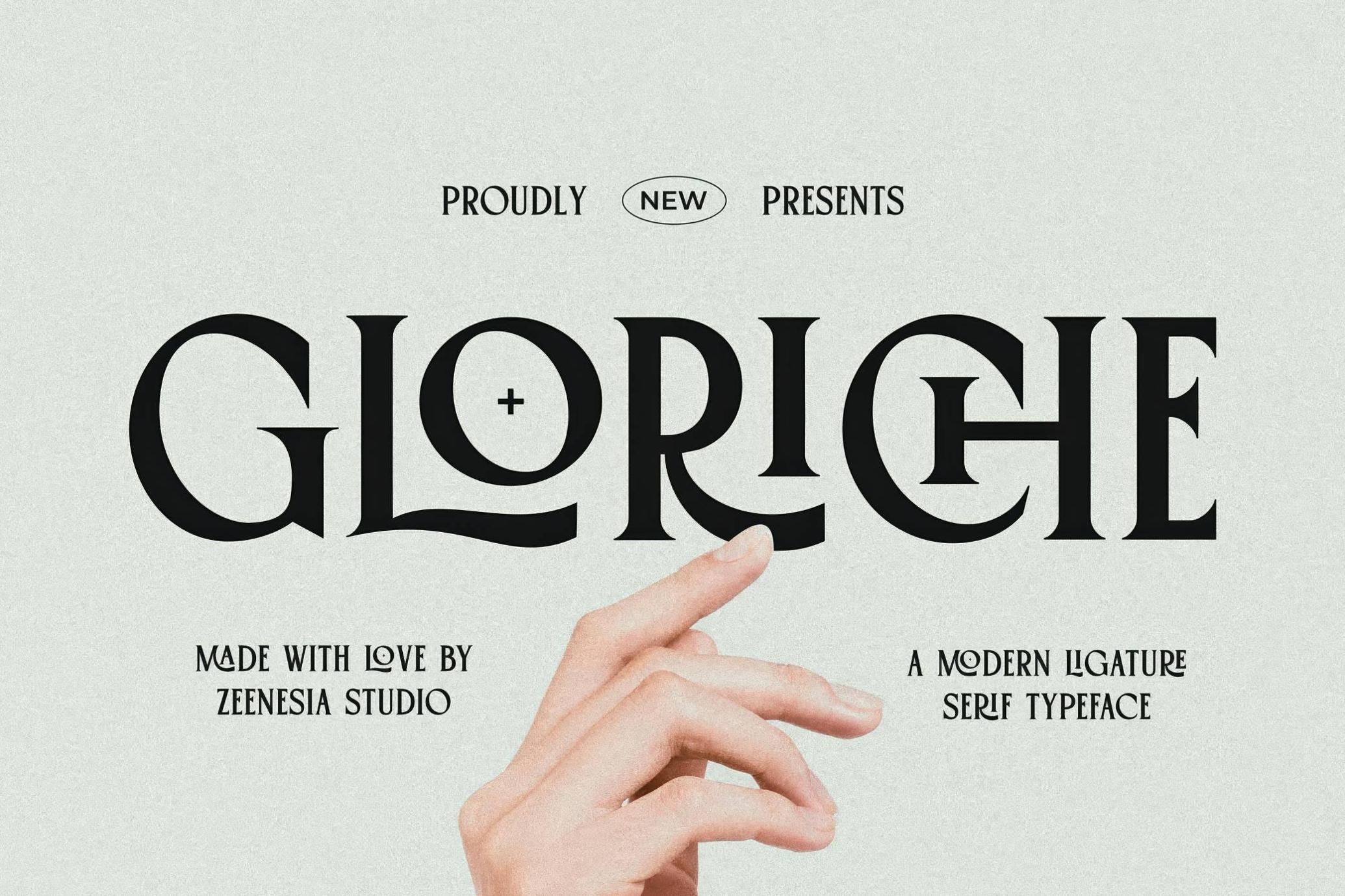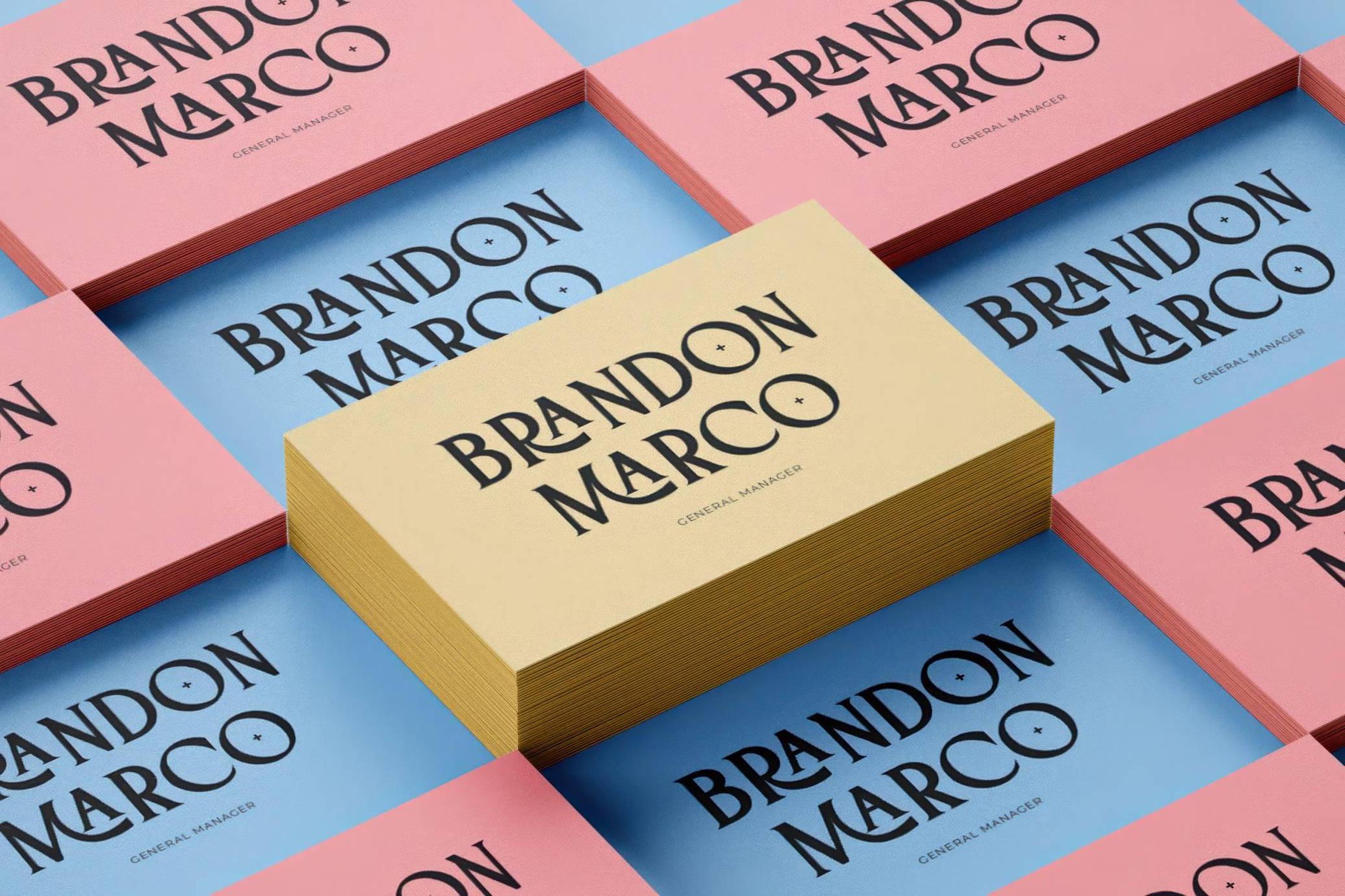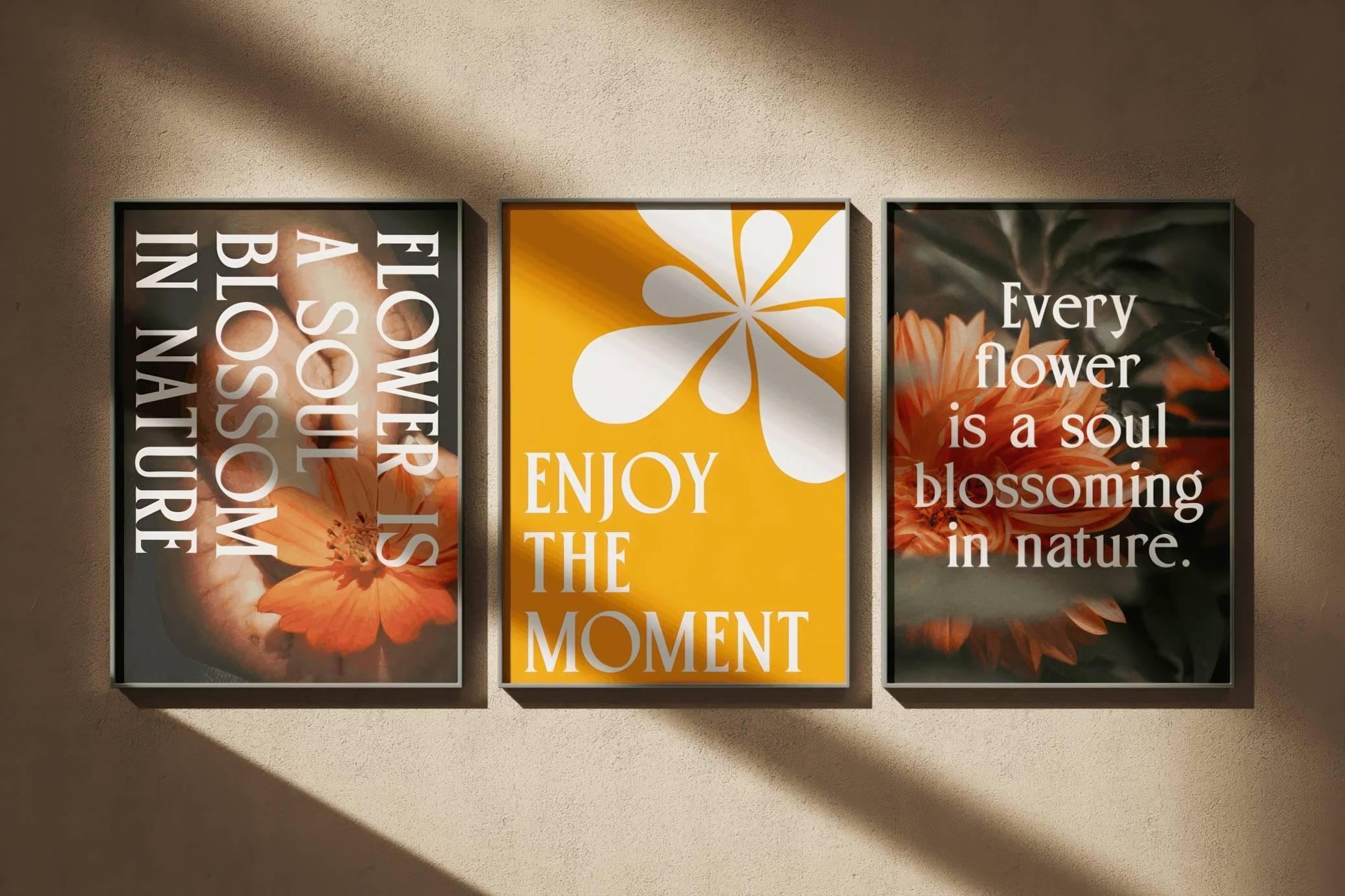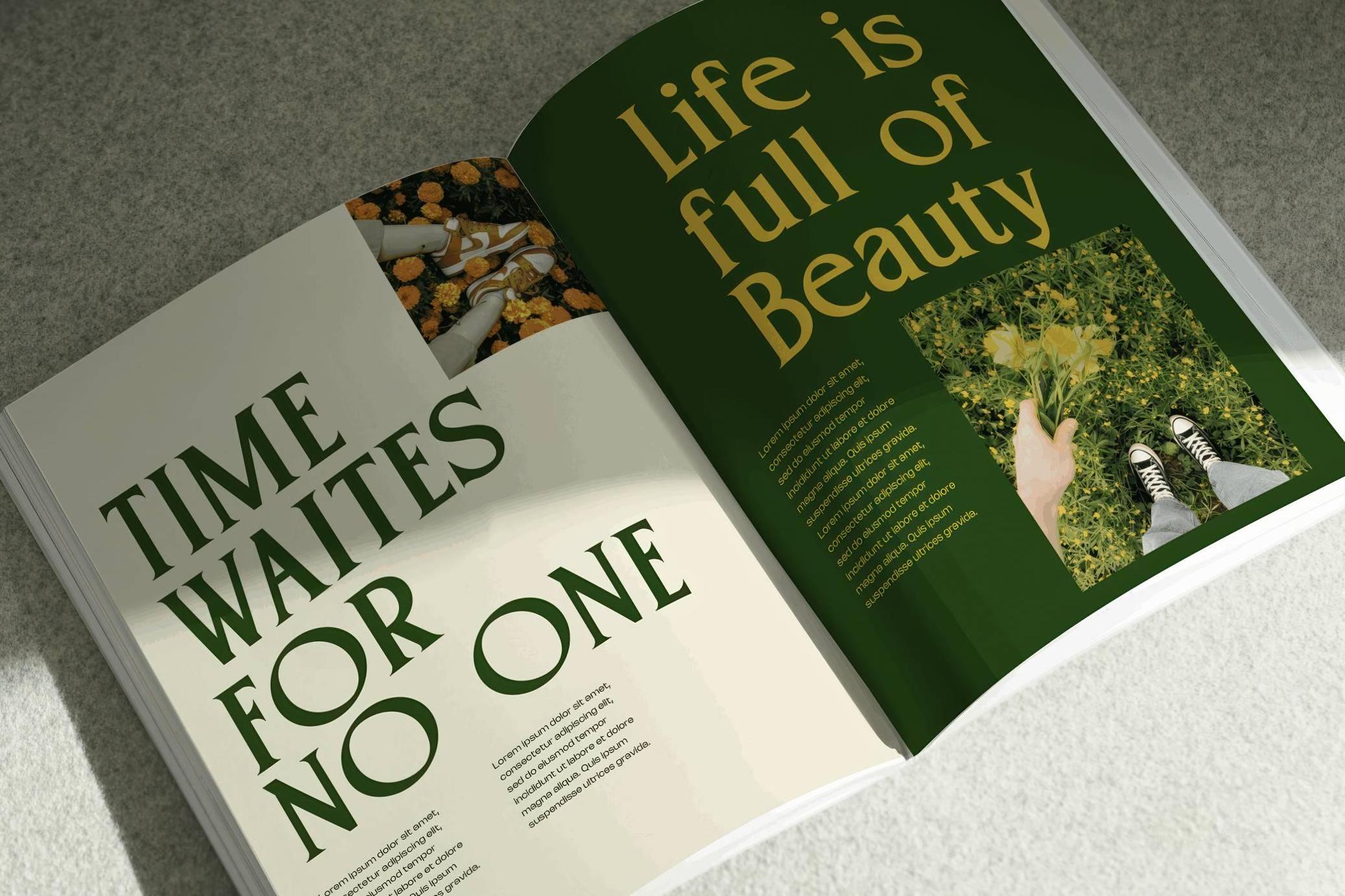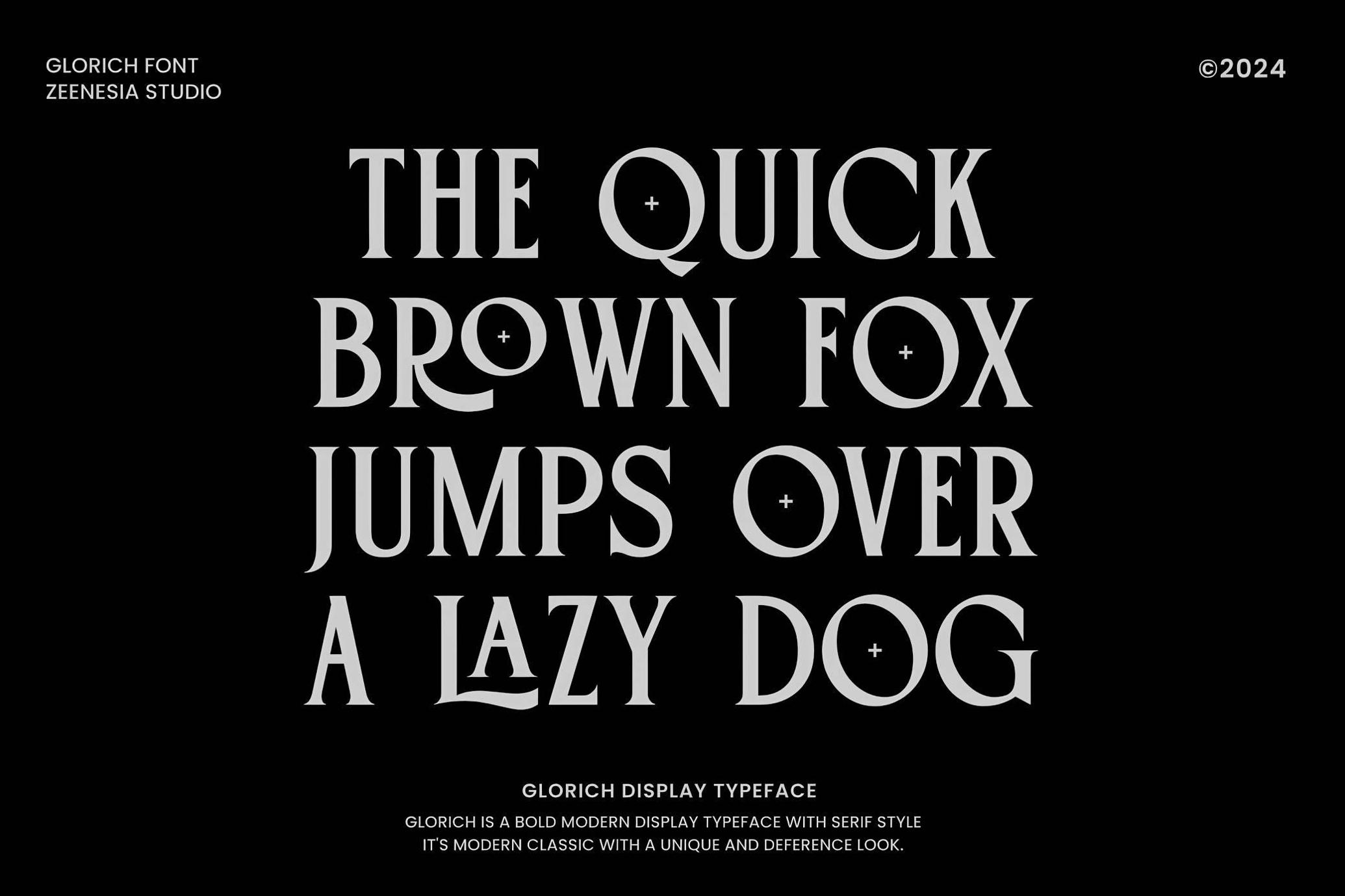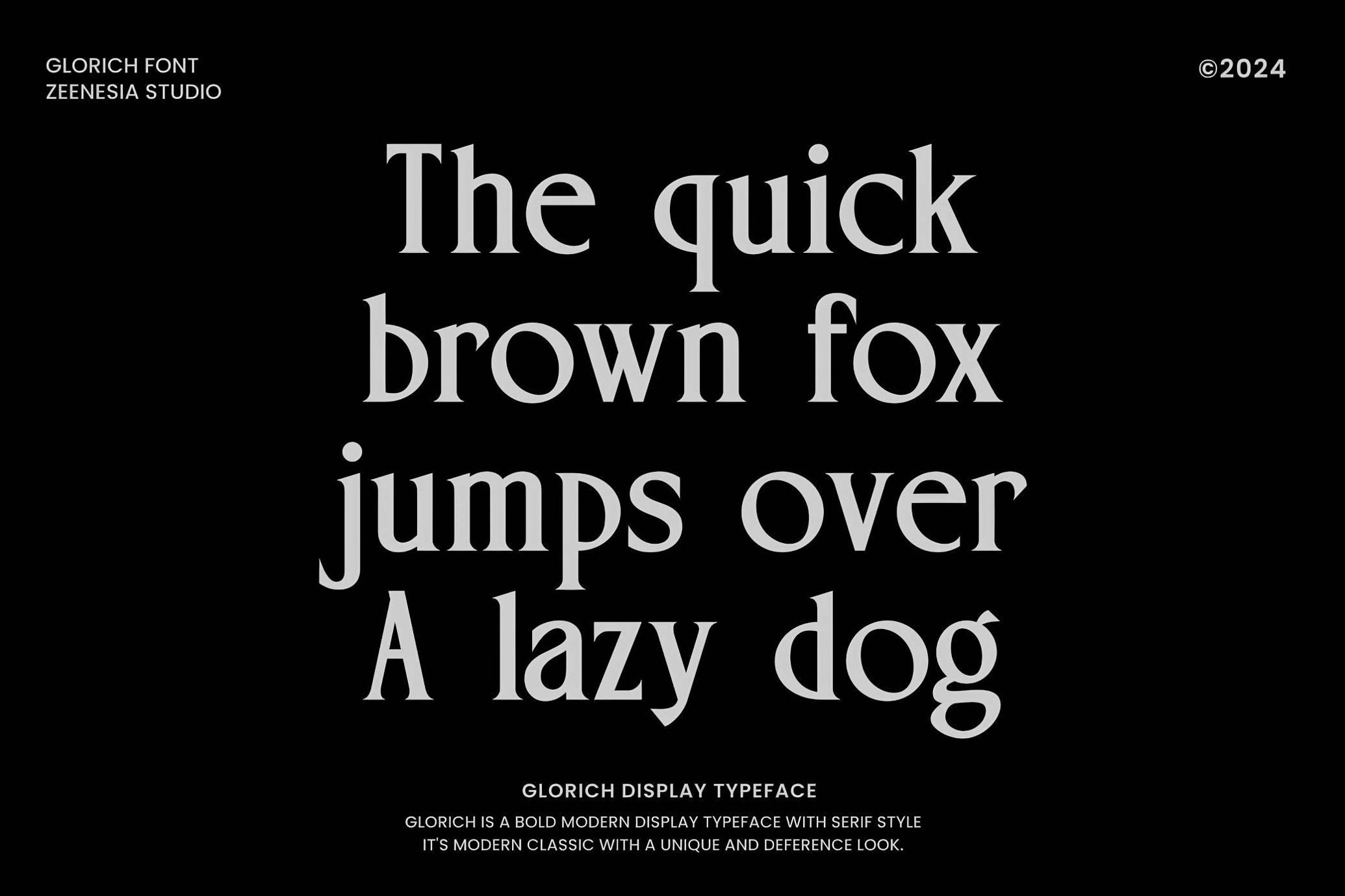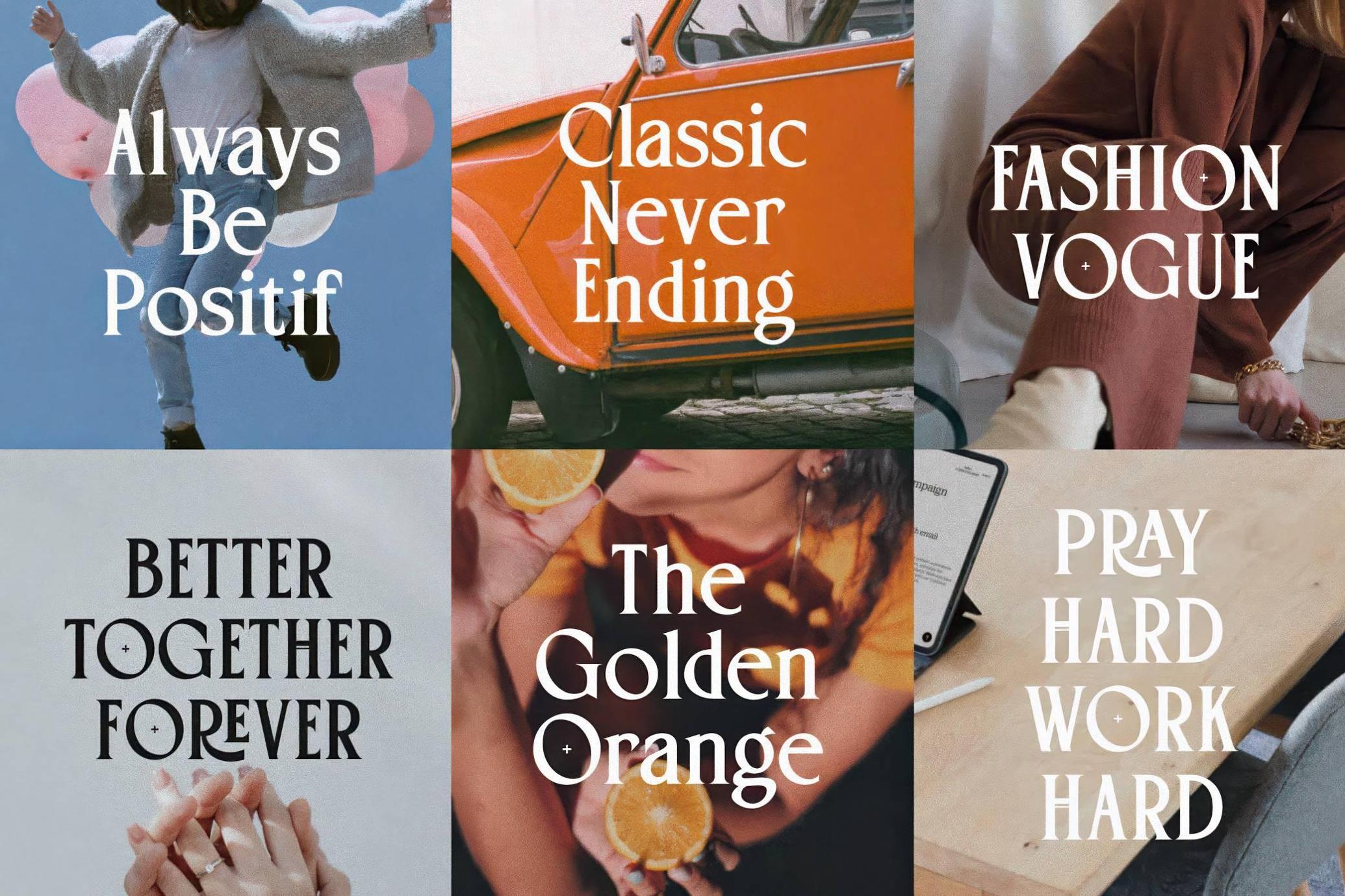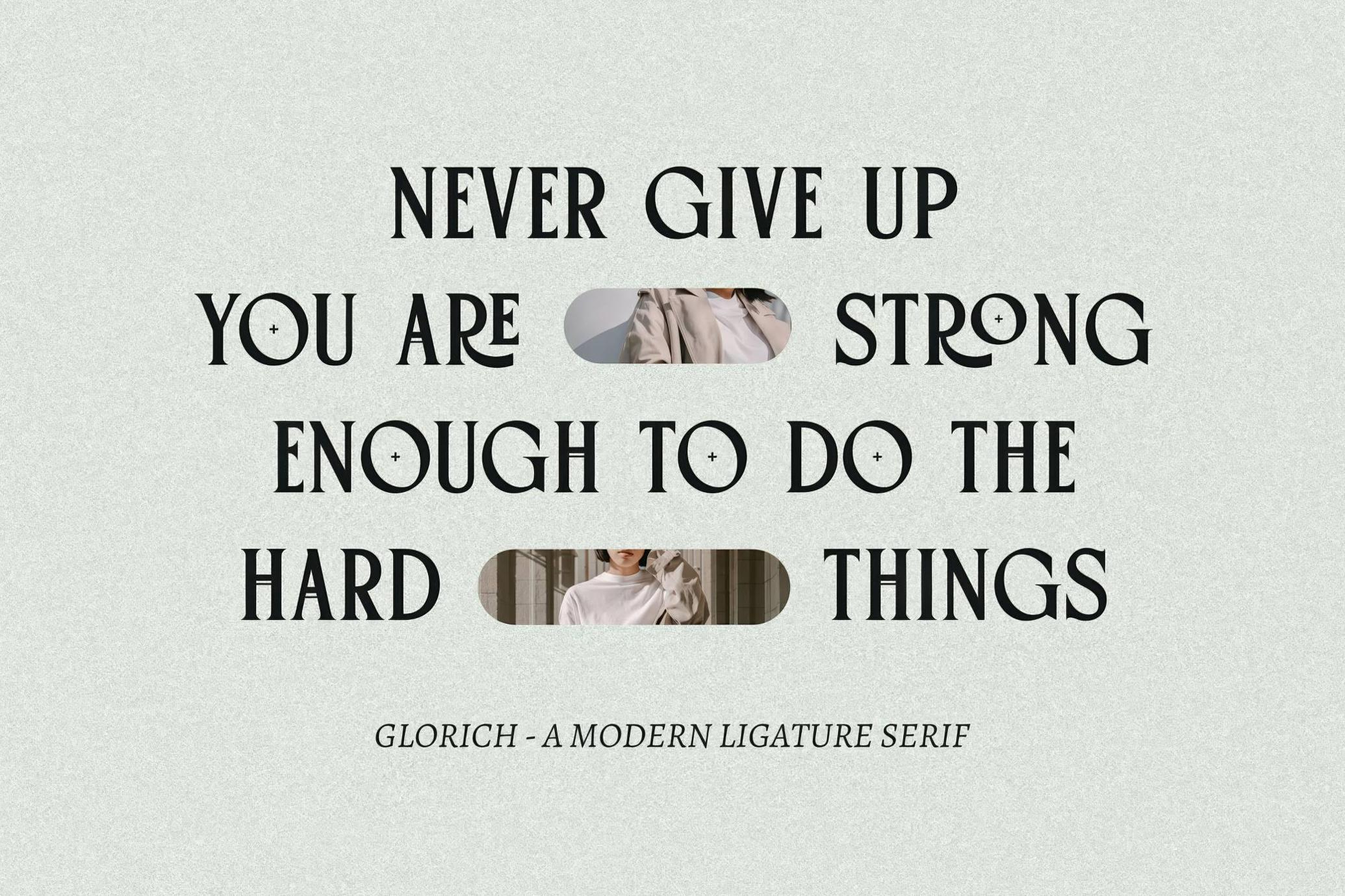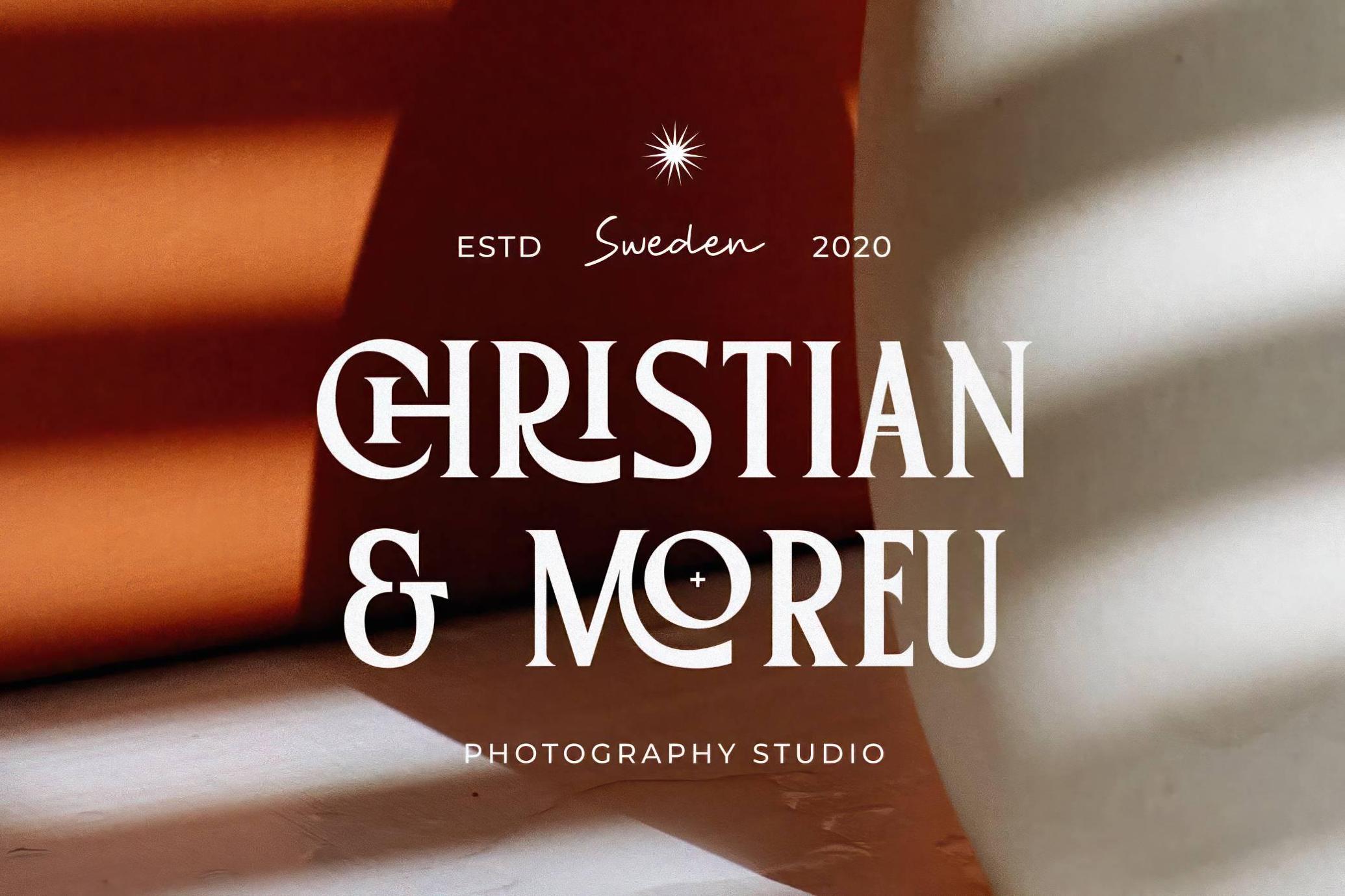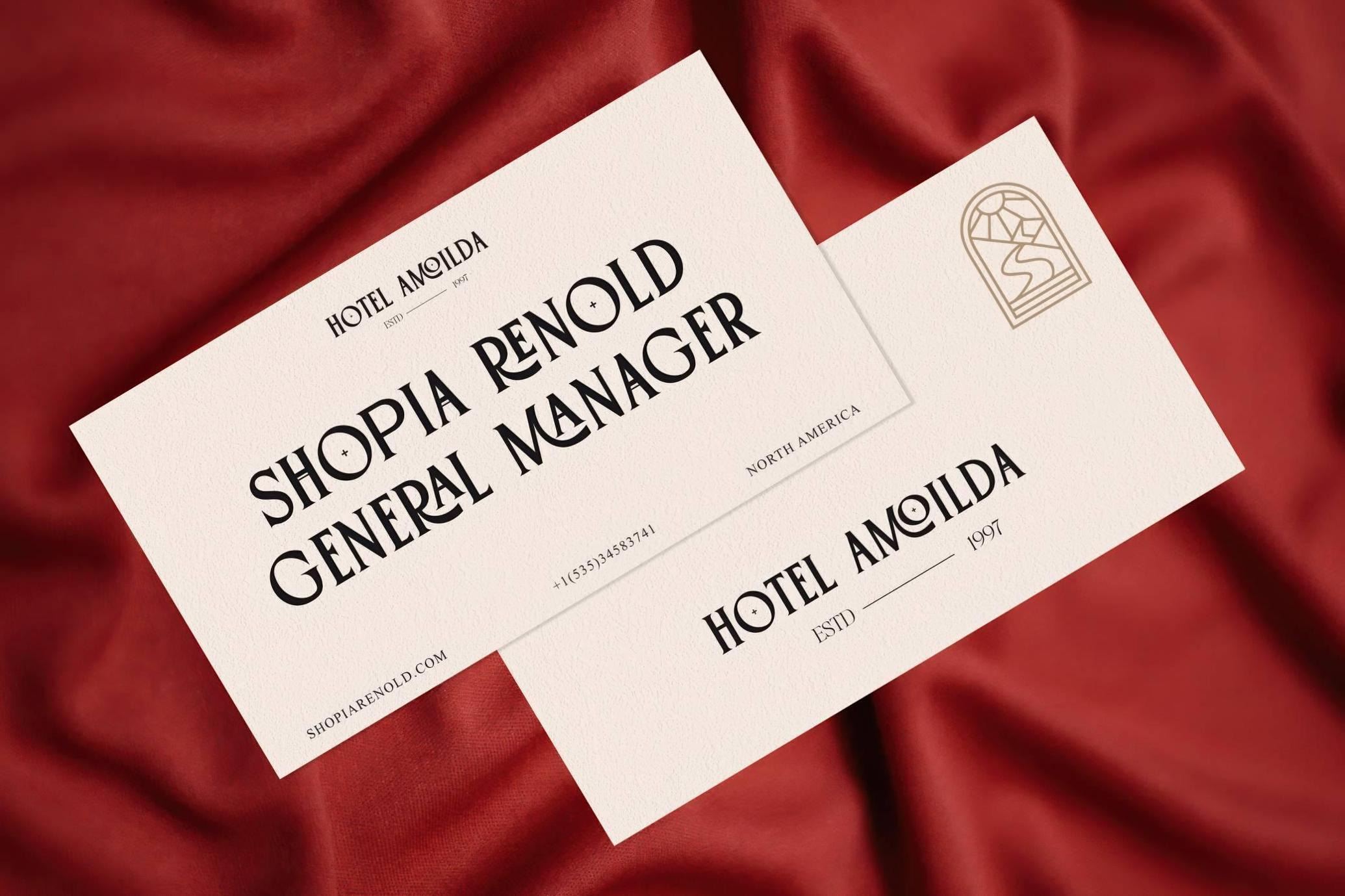
Gloriche Ligature Serif
Gloriche is a display serif built on tension — sharp terminals balanced by smooth ligatures and a theatrical sense of rhythm. It draws from Art Deco geometry with a contemporary edge, delivering enough flair to keep titles, headlines, and logotypes distinct without veering into ornamentation. Every letterform feels deliberate, yet fluid — ideal for projects that demand a confident typographic voice.
This typeface is especially well-suited for beauty packaging, high-end fashion identities, boutique branding, book covers, magazine titles, wedding stationery, perfume ads, and curated digital content. The set of glyphs includes upper and lower case letters, numerals, punctuation, alternates, ligatures, and multilingual characters.